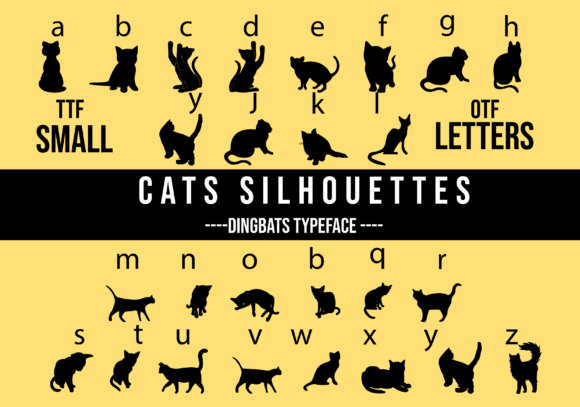
Enter the fascinating world of Cats Silhouettes, the purrfect dingbats font that captivates your imagination and unleashes your creativity. This extraordinary font is a masterpiece crafted by Minimalistartstudio, renowned for their artistic flair in creating fonts that speak to the soul. Cats Silhouettes is not just a font; it's an experience that transports you to a realm of feline charm and elegance.
This remarkable font features an enchanting collection of cat silhouettes, each meticulously designed to capture the essence of our beloved feline friends. From playful kittens to majestic cats, each silhouette exudes personality and grace. You'll find yourself immersed in a world of purrs and meows as you explore the endless possibilities that Cats Silhouettes presents.
Whether you're a seasoned graphic designer or a creative enthusiast, Cats Silhouettes is your perfect companion. Its versatility knows no bounds, making it the ideal choice for an array of projects. Craft stunning logos that radiate feline sophistication, create eye-catching social media posts that will make your audience go "aww," or design whimsical invitations that celebrate the joy of cats. The possibilities are endless, limited only by your imagination.
Cats Silhouettes isn't just a font; it's an expression of your passion for cats. Show off your love for these adorable creatures through your designs, and let your projects radiate feline charm. With Cats Silhouettes, your creativity will purr with delight, and your audience will be captivated by the sheer brilliance of your designs.
So, dive into the world of Cats Silhouettes today and embark on a creative journey that's as unique and captivating as your feline friends. Let your imagination run wild as you create designs that purr-fectly capture the essence of cats. The world of Cats Silhouettes awaits you—a world where creativity and feline charm dance together in perfect harmony.